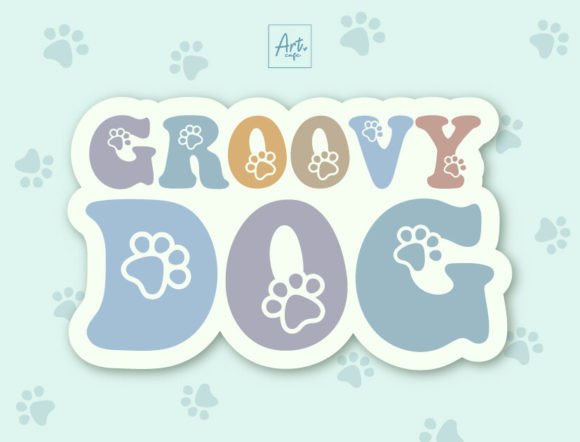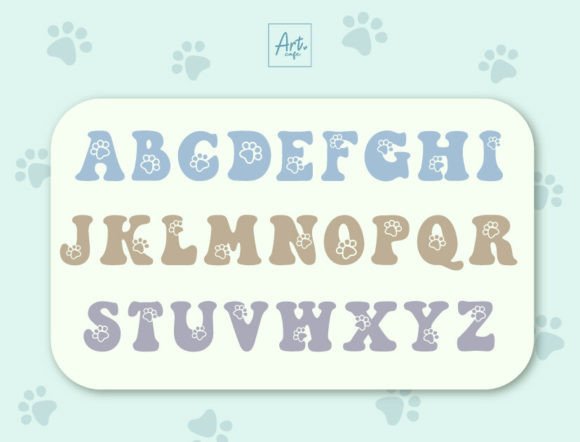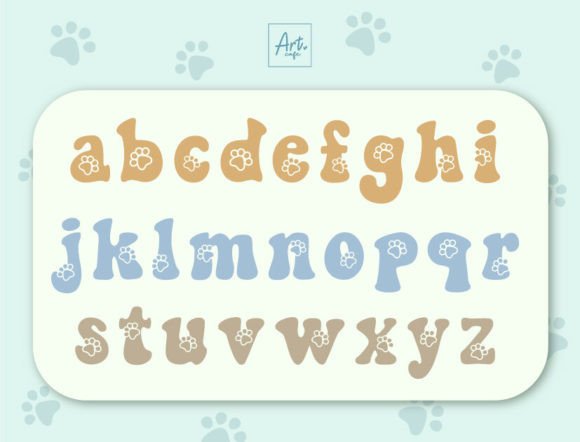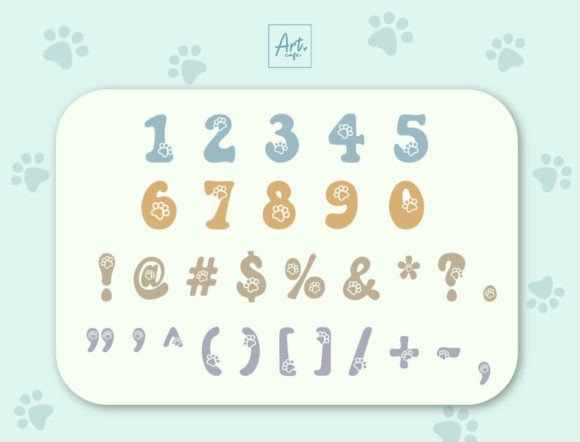
Groovy Dog Font
About the Groovy Dog Font
Explore the possibilities with Groovy Dog Font, a font that offers both beauty and functionality. Unleash your love for pets with Groovy Dog, a retro font featuring a tasteful fusion of nostalgic style and adorable paw prints from our four-legged friends. This unique typeface, embellished with charming prints of dog and cat paws, resonates with both dog and cat aficionados. Groovy Dog transcends the ordinary, giving a playful, vintage flair to your typography needs. Ideal for pet lovers who value a nostalgic touch, Groovy Dog transforms simple text into paw-sitively delightful designs.
Groovy Dog’s playful, retro style works best in headlines, short captions, logos for pet-related businesses, and playful packaging designs. It adds a charming, vintage touch to posters and social media graphics. However, its decorative nature makes it unsuitable for body text or UI elements requiring high readability. The paw prints, while charming, can hinder legibility in longer passages.
This font’s core personality is friendly and nostalgic. To complement this, pair Groovy Dog with a clean sans-serif like Open Sans for body text or a classic serif like Playfair Display for a more sophisticated contrast. A simple, geometric sans-serif could also work well, providing a modern counterpoint to the font’s vintage feel.
Consider Groovy Dog for brands targeting a younger audience or those with a focus on pets, vintage aesthetics, or playful products. Avoid using it where clarity and readability are paramount.
Groovy Dog Font Usage Examples
Groovy Dog Font Example